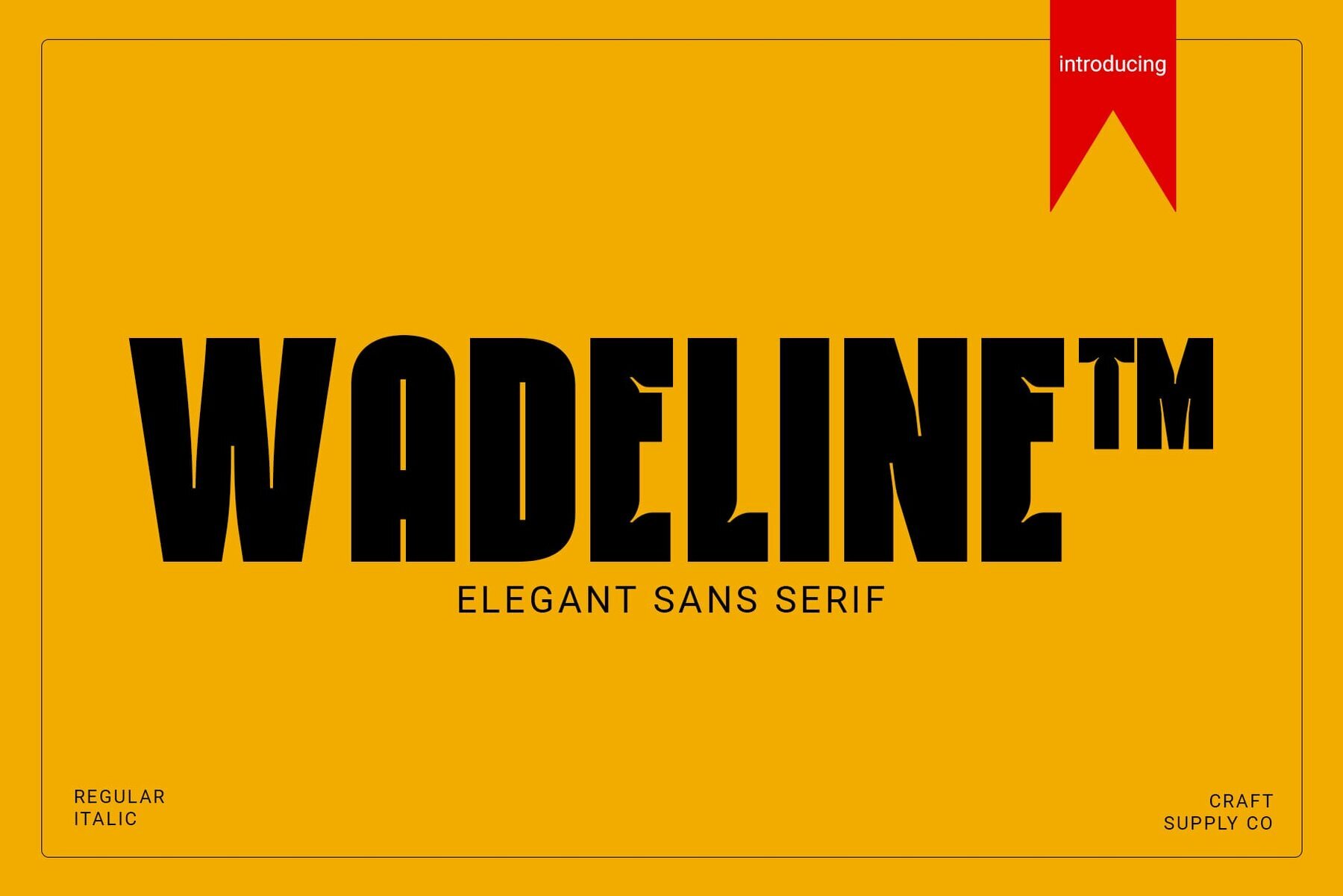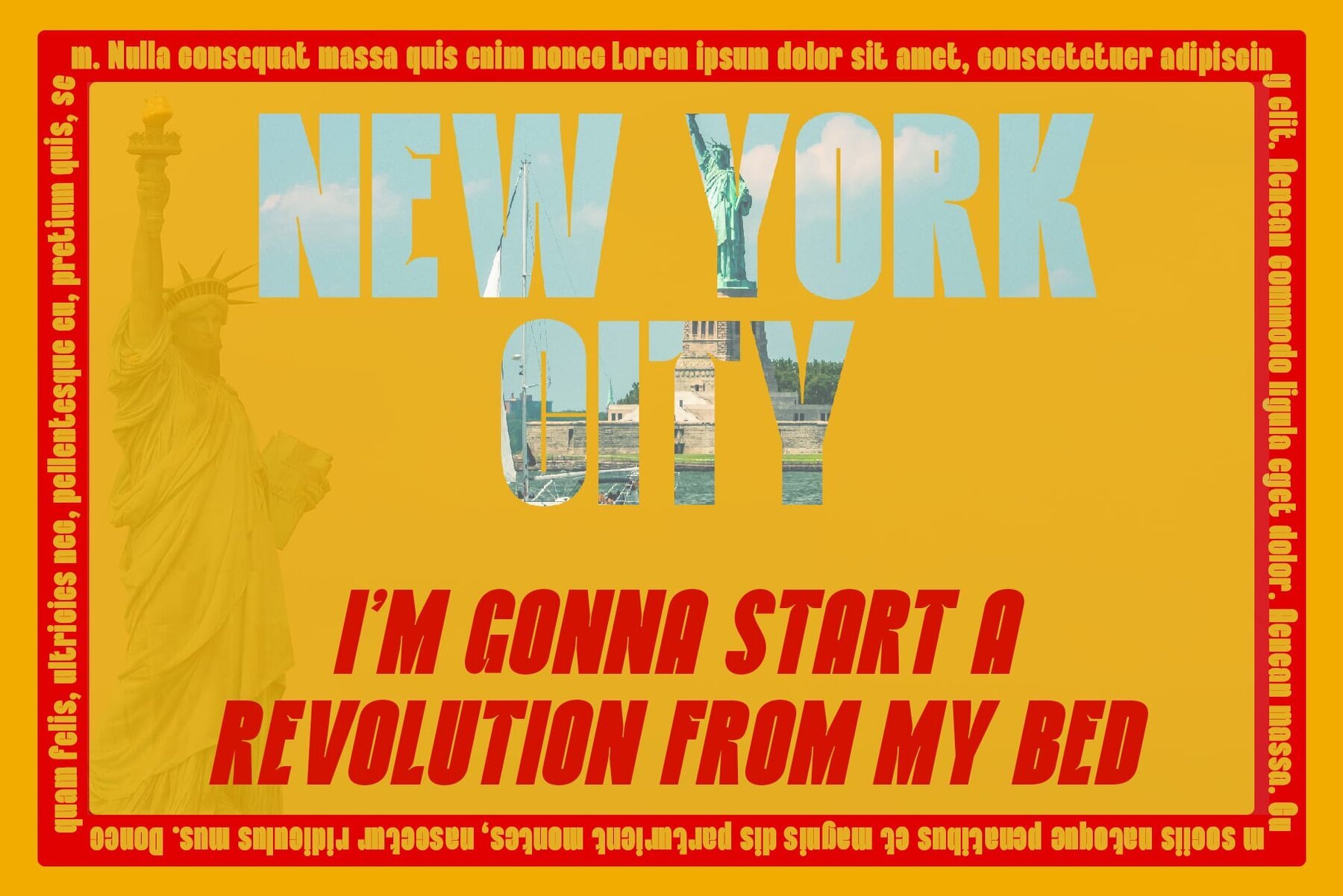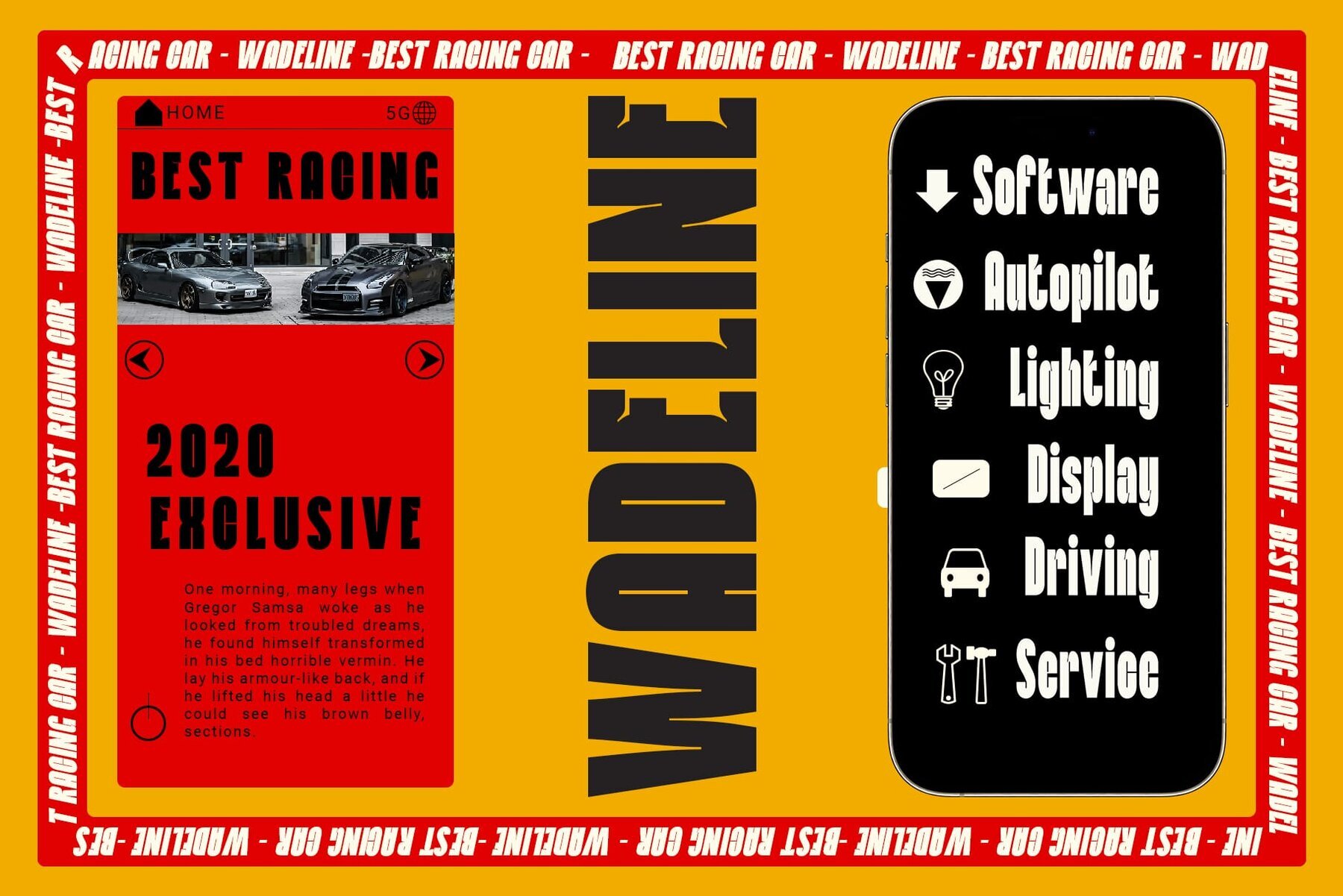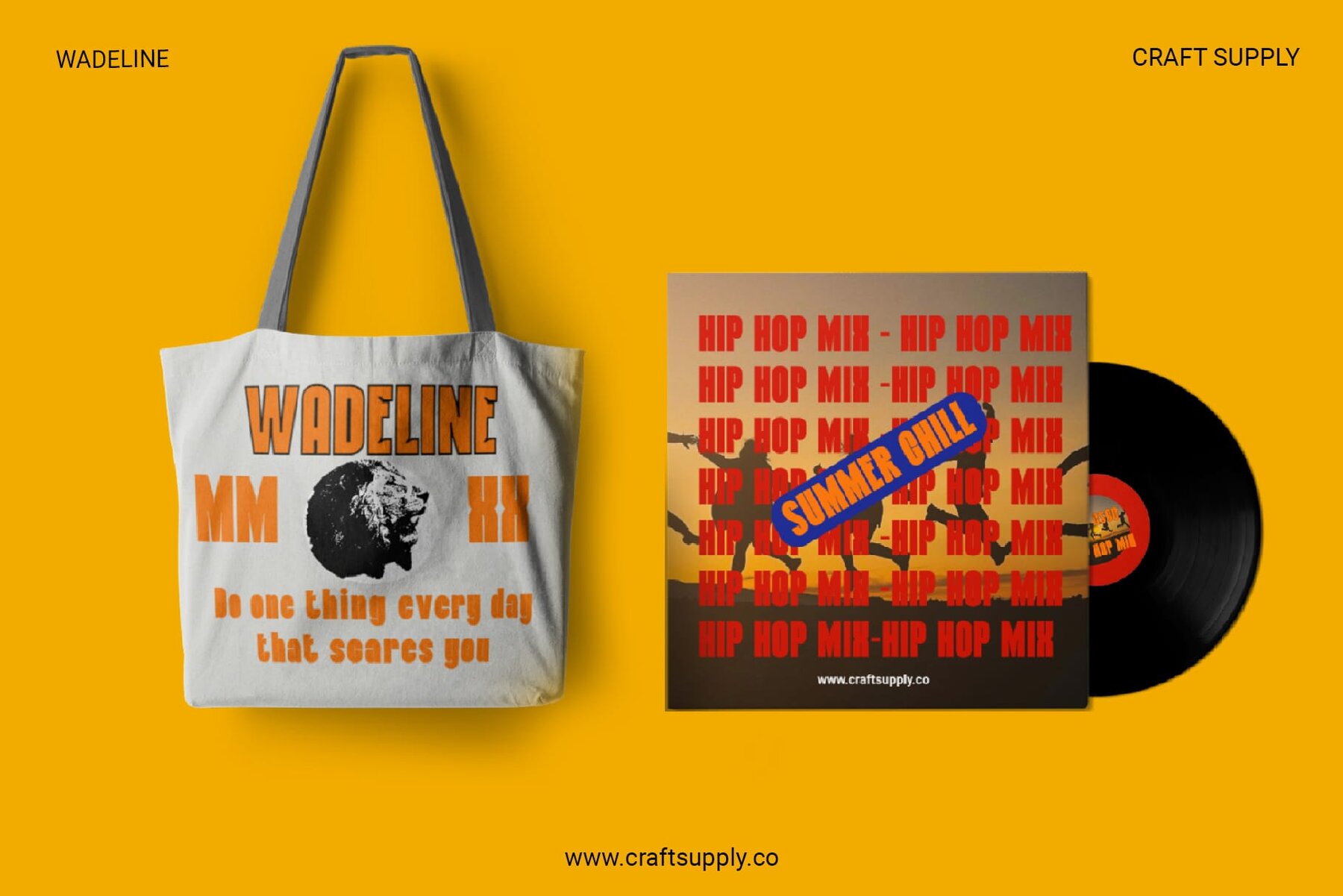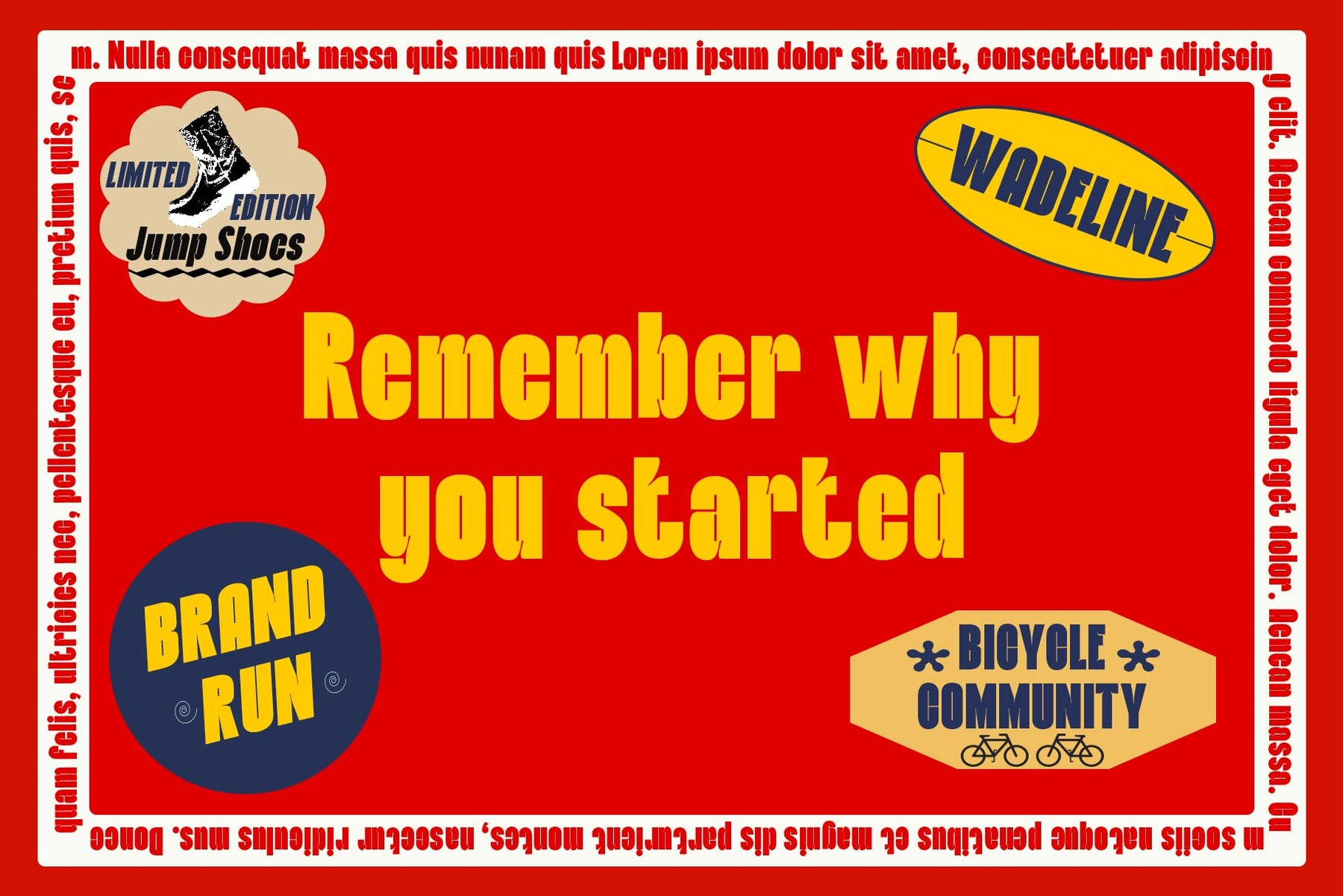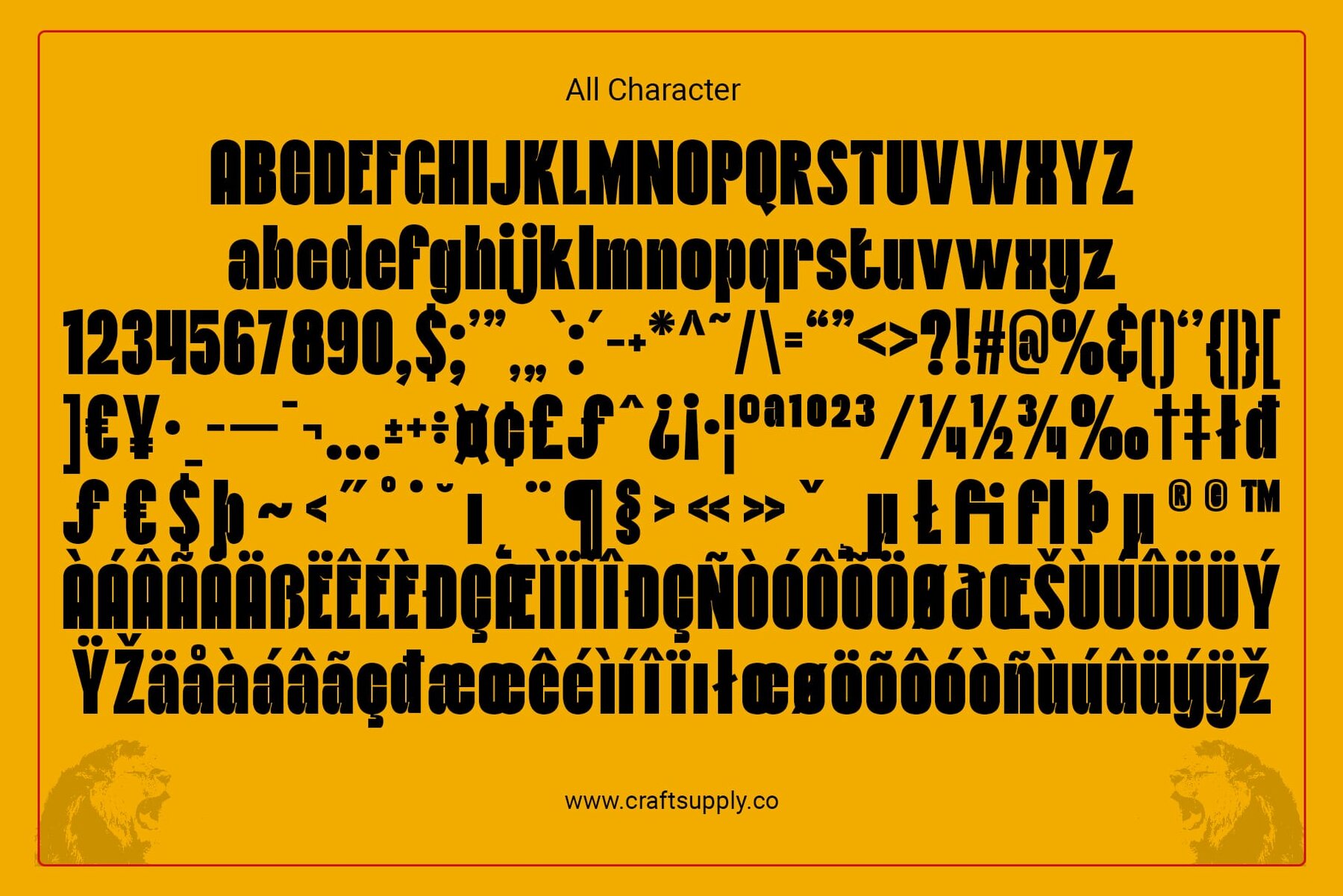
Wadeline Font
Wadeline boasts a sleek and modern slim sans serif design with narrow white space, perfect for efficient use without compromising readability. Its condensed form ensures it fits seamlessly into various layouts. Each character exudes confidence and authority, making it an ideal choice for corporate branding and displays that demand attention.
Tailored for corporate environments, Wadeline shines in presentations, signage, and branding materials. Despite its condensed style, it offers versatility for various applications, from headlines and logos to product packaging and advertising. With a bold weight and striking visual impact, this font ensures your message is both visible and impactful.
- Uppercase and lowercase characters
- Numerals and punctuation (OpenType Standard)
- Accents (supports multilingual characters)